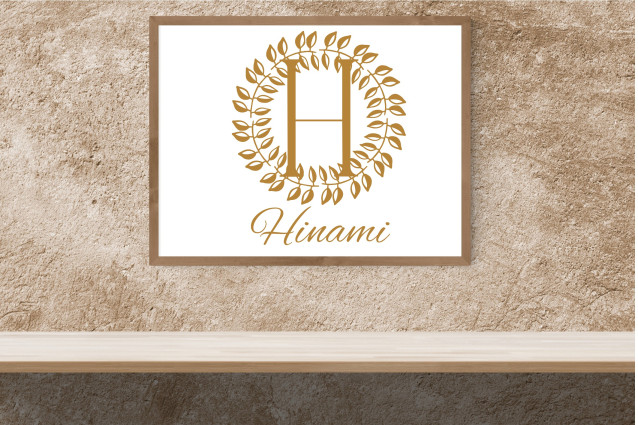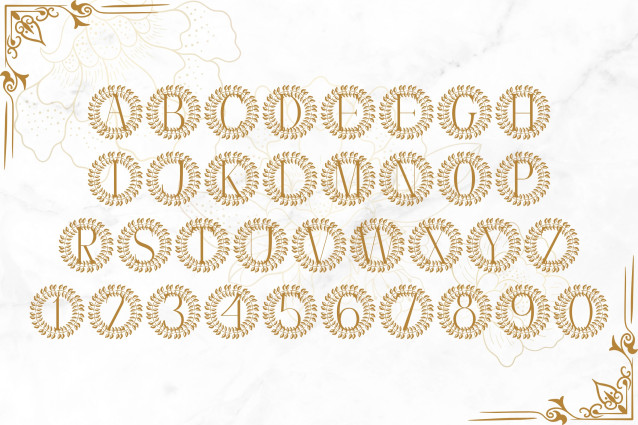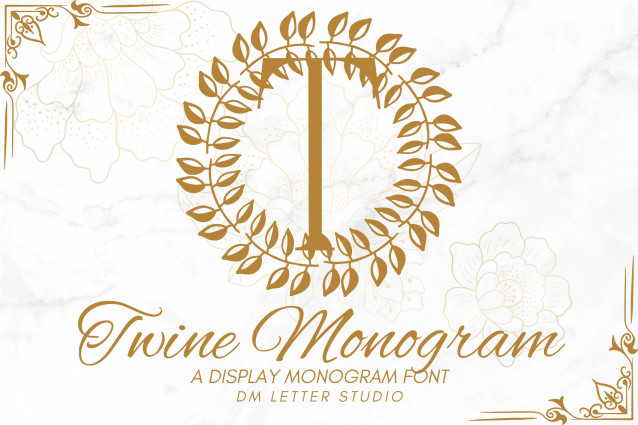
Twine Monogram Font
Twine Monogram Font is a refined serif monogram font accented with delicate twine-inspired details. Each uppercase letter is designed with subtle interwoven lines, echoing the beauty of handcrafted knots and natural threads. Perfect for wedding stationery, boutique branding, personalized packaging, and decorative initials, Twine Monogram blends timeless serif elegance with organic charm.